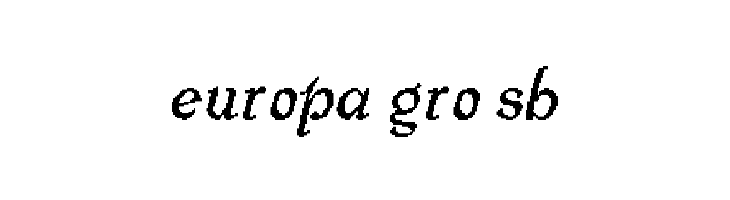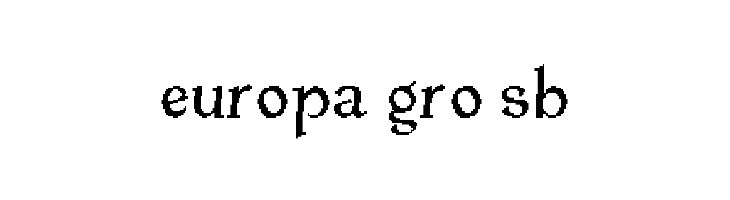
A hand-drawn, playful font with an artistic and casual style.
A bold, hand-drawn font with characters in black squares, offering a raw, edgy style.
A bold, rounded font with a playful, retro 1990s aesthetic.
An elegant, high-contrast script font with flowing, interconnected letters.
A semi-bold serif font with elegant curves and classic style.
A modern, italic sans-serif font with smooth curves and consistent stroke width.
A modern, geometric sans-serif typeface with uniform strokes and clear characters.
A decorative and modern font with elegant swirls and clean lines.
A modern, flowing cursive font with an elegant italic style.
A cursive, elegant font with a slight slant and consistent flow.
A bold, distressed font with a rough, textured appearance and jagged edges.
A flowing, cursive script font with elegant, interconnected strokes.
A playful handwritten sans-serif font with rounded, even strokes.
A bold, geometric font with a modern and structured design.
A modern oblique font with a sleek, dynamic style.
A dynamic and flowing script font with elegant, cursive strokes.
An elegant and decorative font with ornate swirls and curves.
A modern, geometric sans-serif font with clean lines and a slightly condensed style.
A casual, handwritten font with a smooth, flowing style.
A casual, handwritten font with smooth, flowing curves and a natural, organic feel.
A cursive, handwritten-style font with elegant, flowing strokes.
A playful, casual handwritten font with smooth curves and a friendly appearance.
An ornate and flowing script font with intricate flourishes.
A bold, playful handwritten font with rounded, smooth strokes.
A playful, hand-drawn font with a whimsical and informal style.
A playful, handwritten font with smooth, flowing curves and consistent stroke thickness.
A playful, handwritten font with a friendly and informal style.
A bold, brush-style font with dynamic and expressive strokes.
A bold, expressive brush-style font with a dynamic, hand-painted look.